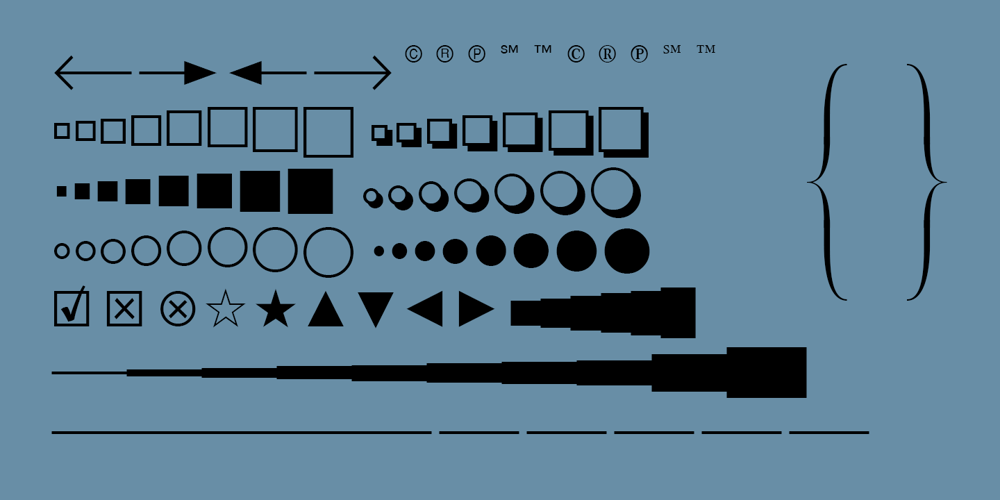
PIXymbols Box ‘n Lines
PIXymbols Box ‘n Lines font
PIXymbols Box ‘n Lines Font Family was designed by Roger Vershen and published by Page Studio Graphics. PIXymbols Box ‘n Lines contains 1 styles and family package options. A font with boxes, bullets, large brace segments, etc. Plus six pt. wide line segments which will generate lines in 16 weights, in any program which supports fonts.